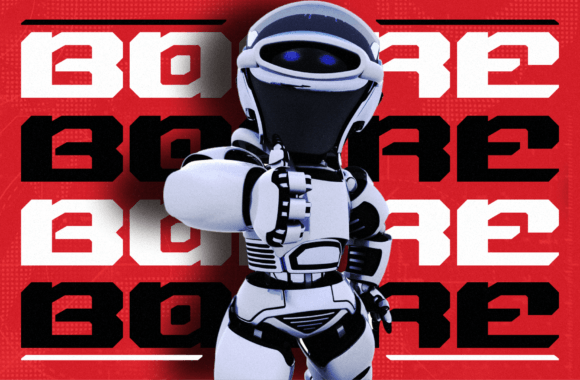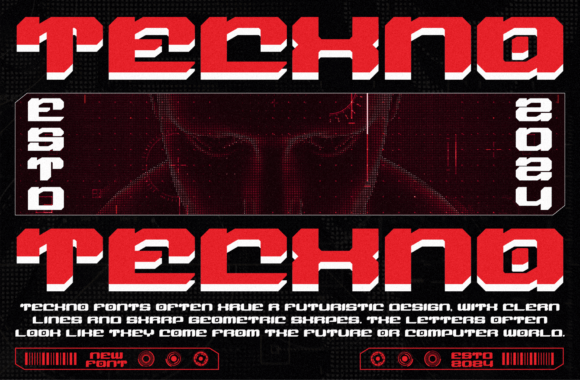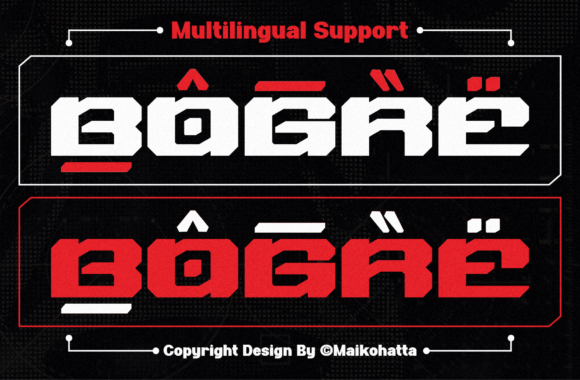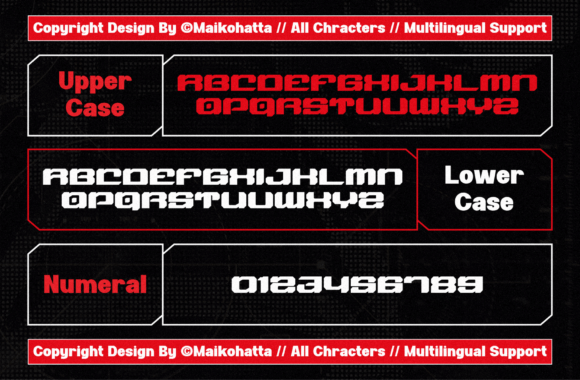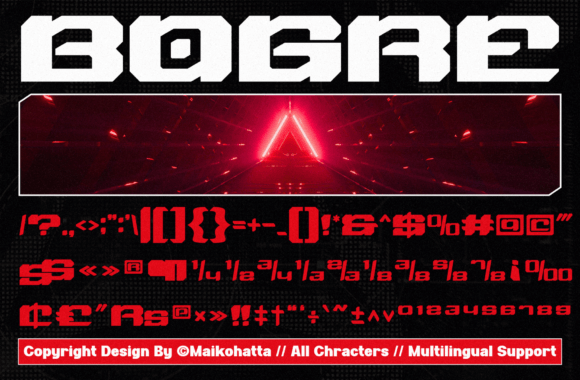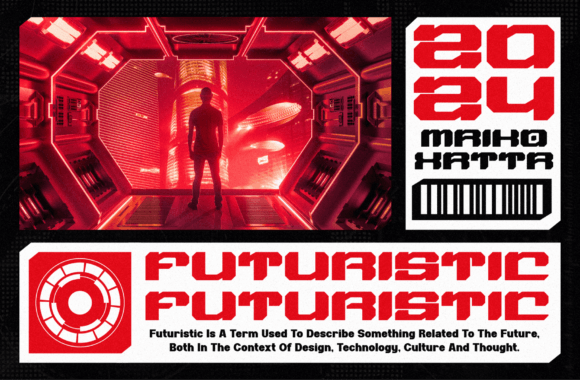
Introducing Bogre: The Modern Techno Font That’s Changing the Game
I’ll never forget the design project that led me to create Bogre. I was working on a futuristic robotics campaign, and I just couldn’t find the right font to bring the brand to life. The clients wanted something sleek, modern, and edgy – something that screamed innovation and cutting-edge tech. After hours of scouring font libraries and marketplaces, I realized I was on a mission to create something new. And thus, Bogre was born.
What is Bogre?
Bogre is a modern techno font that’s inspired by the latest advancements in technology. With its sharp lines, geometric letter shapes, and futuristic elements, this font is perfect for projects related to tech, robotics, science, and modern lifestyle. Whether you’re designing a logo, website, poster, or any other creative project, Bogre brings a sense of modernity, innovation, and energy to the table.
What I Love About Bogre ✨
- ✅ Versatility: Bogre is incredibly versatile and works well in a variety of design contexts, from digital to print.
- ✅ Legibility: The font’s clean lines and geometric shapes make it easy to read, even at small sizes.
- ✅ Customization: With OpenType features and glyphs, you can customize Bogre to fit your brand’s unique style.
- ✅ Unique Personality: Bogre has a distinct personality that’s hard to find in other fonts – it’s perfect for brands that want to stand out.
- ⚠️ Limited Serif Options: Bogre is a sans-serif font, which might limit its use in certain design projects that require a serif font.
- ⚠️ May Not Suit All Brands: Bogre’s futuristic vibe might not be suitable for brands that prefer a more traditional or classic look.
Bogre was inspired by the futuristic designs of sci-fi movies and video games. As a designer, I’ve always been fascinated by the intersection of technology and art. I wanted to create a font that captured the essence of innovation and modernity, while also being highly legible and versatile. After months of experimentation and refinement, Bogre was born – a font that’s designed to bring a sense of excitement and energy to any design project.
Q: Is Bogre suitable for print design?
Yes, Bogre is a versatile font that works well in print design, from business cards to billboards.